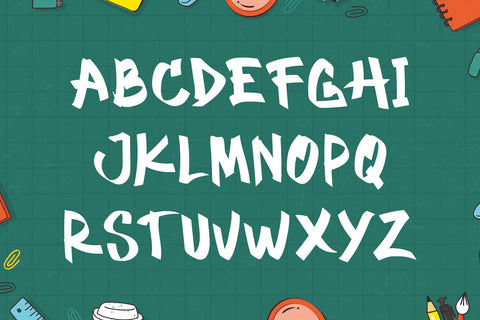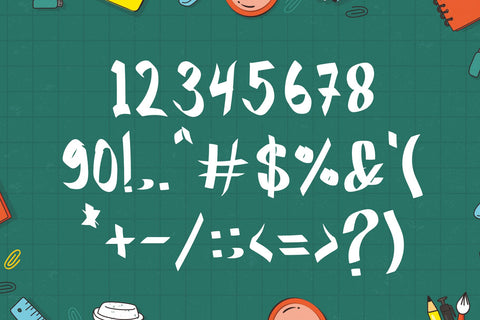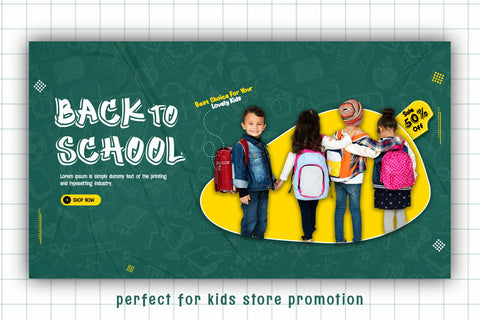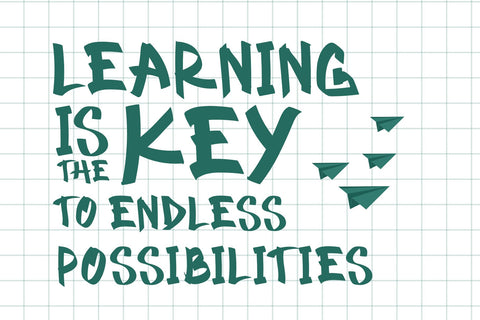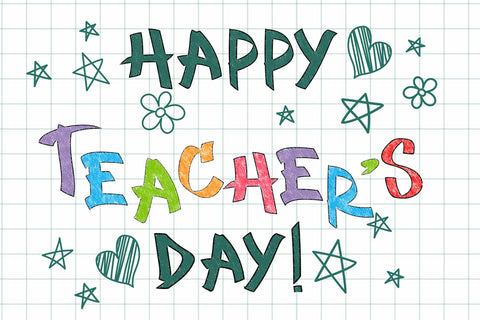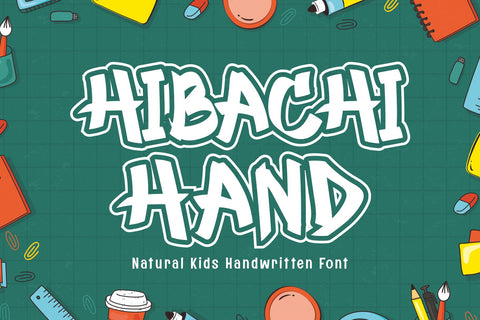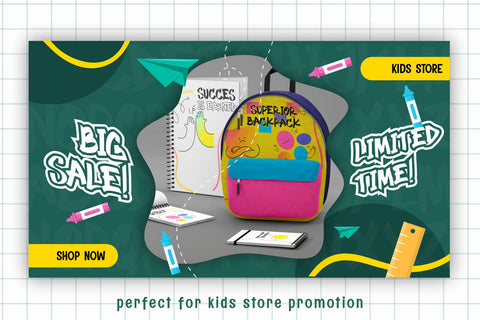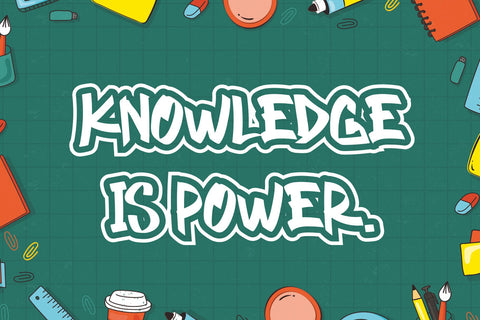
Hibachi Hand - Natural Kids Handwritten Font
Hibachi Hand is a natural kids' handwritten font, perfect for any crafting theme related to kids or school projects. Its playful and authentic handwritten style brings a charming and whimsical touch to children's books, educational materials, and creative crafts. This font is ideal for creating engaging and fun designs that resonate with young audiences, making it a great choice for posters, classroom decorations, children's party invitations, and more.